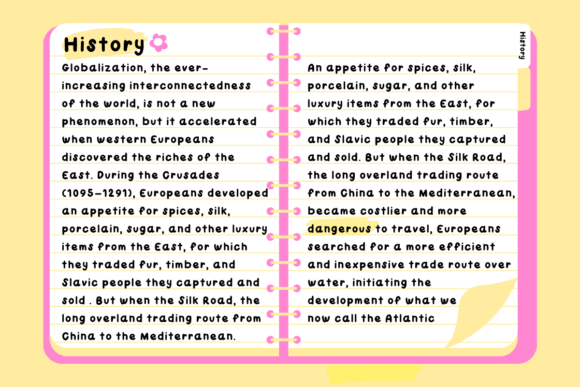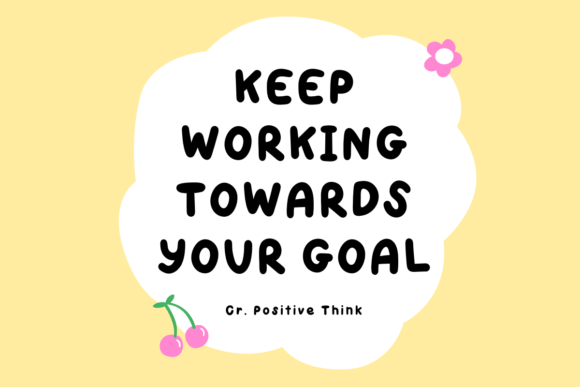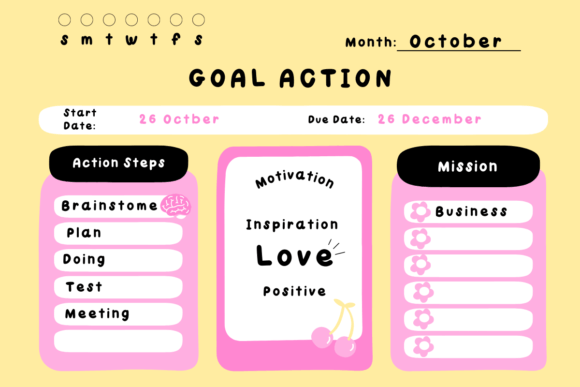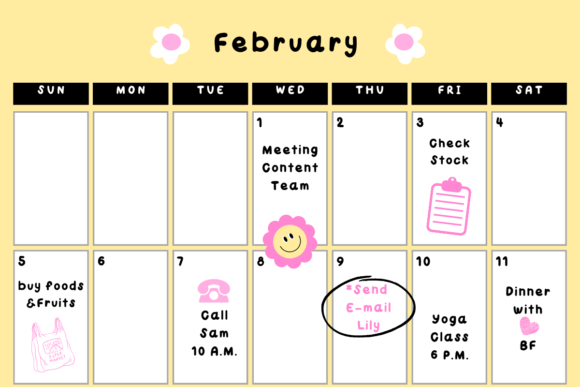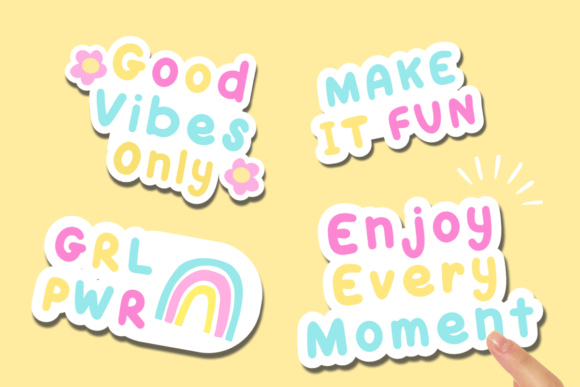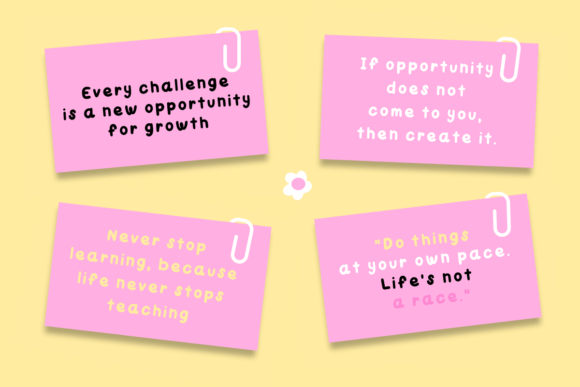
The Goodies Note Font: A Handwritten Gem for Creative Projects
I’ll never forget the time I was working on a craft project, pouring my heart and soul into creating the perfect invitation for a friend’s baby shower. I had the design concept nailed, but something was missing – the right font. I scrolled through page after page of Google results, but nothing seemed quite right. That was until I stumbled upon the Goodies Note font. Its effortless blend of visual appeal and readability instantly drew me in, and I knew I’d found the perfect fit.
An Honest Review of Goodies Note
So, what makes Goodies Note so special? Let’s dive into the good stuff and a few quirks I’ve discovered.
- ✅ Readability: Goodies Note is incredibly easy to read, even at smaller font sizes.
- ✅ Versatility: This font is perfect for a wide range of design projects, from crafting and DIY to branding and advertising.
- ✅ Aesthetics: The handwritten style of Goodies Note adds a touch of warmth and personality to any design.
- ✅ Ease of use: This font is a breeze to work with, even for those new to design.
- ⚠️ Limited formal use: Goodies Note is a highly informal font, so it may not be the best choice for more formal projects or designs requiring a professional tone.
- ⚠️ Overuse: While Goodies Note is a beautiful font, using it excessively can make your design look cluttered and overwhelming.
The Story Behind Goodies Note
Goodies Note was designed with the intention of creating a font that’s both beautiful and functional. While the exact backstory of the font is unclear, it’s evident that the designer aimed to craft a typeface that’s approachable, yet stylish.
| What type of projects is Goodies Note best suited for? | Goodies Note is perfect for creative projects, crafts, DIY, branding, and advertising. Its informal style makes it ideal for designs that require a personal touch. |